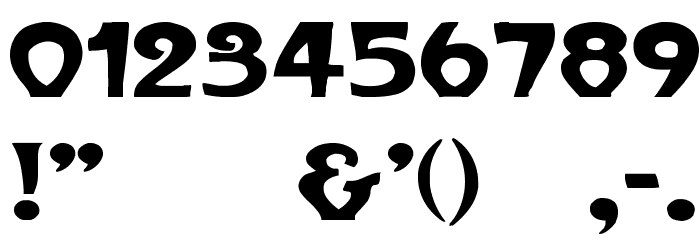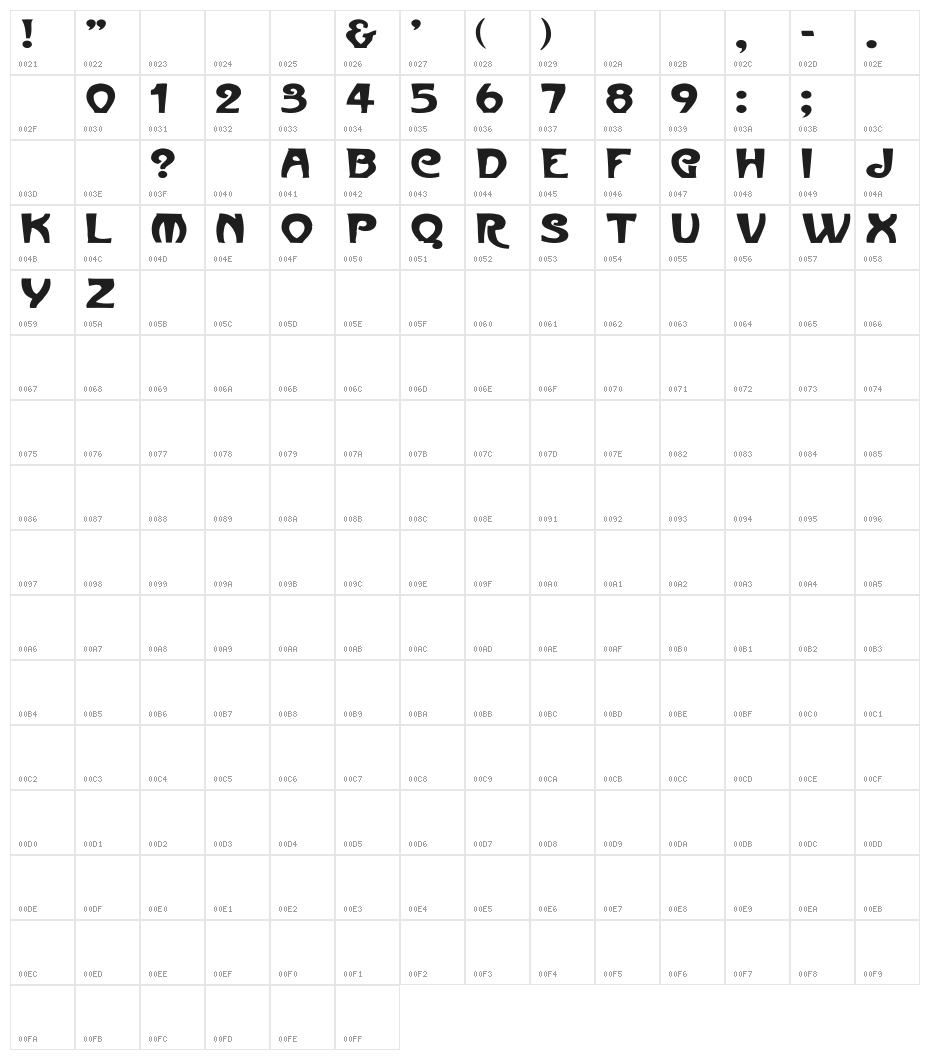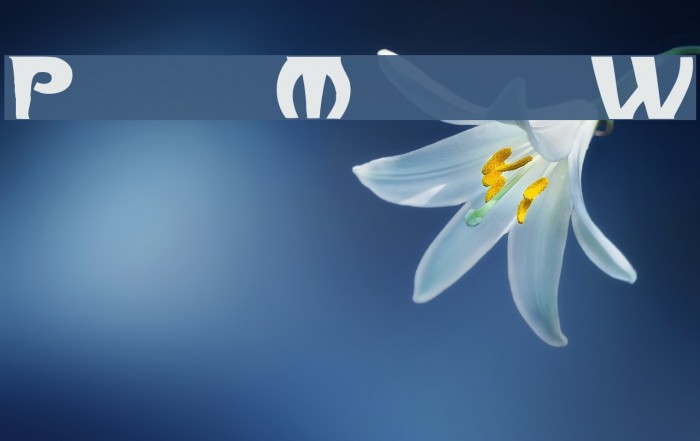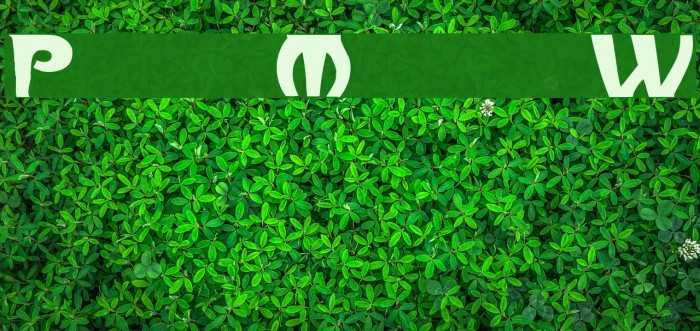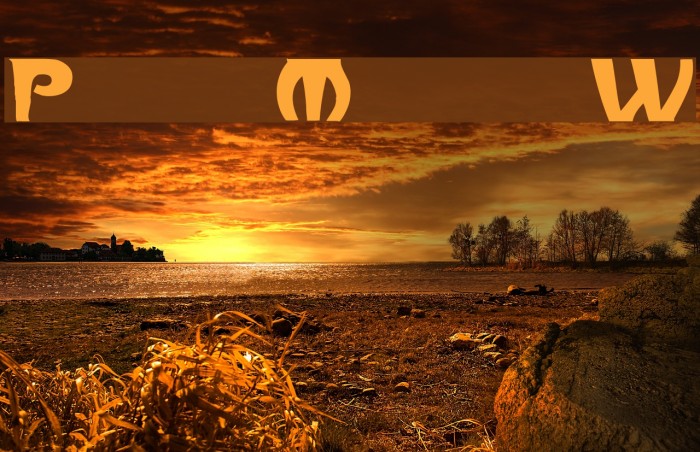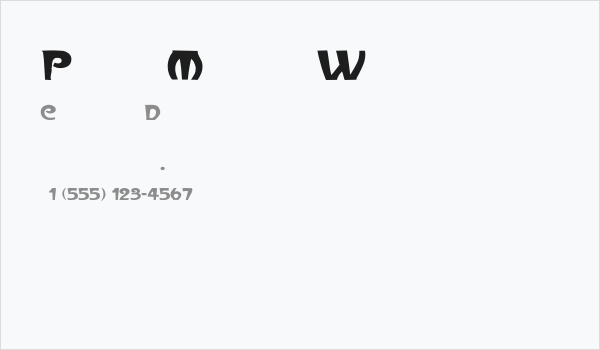
ParisMetro Wd Font
ParisMetro Wd Description
This font features a bold and decorative style, reminiscent of early 20th-century Art Nouveau design, often associated with the Paris Metro signage. The characters are uniquely stylized with thick, rounded strokes and distinctive curves, giving them a playful yet sophisticated appearance. The uppercase letters are particularly eye-catching, with some characters incorporating unexpected swirls and flourishes. The numerals and special characters maintain the same boldness and decorative flair, ensuring consistency across the typeface. This font's unique aesthetic makes it stand out, offering a vintage charm that is both nostalgic and artistic.
| Use Case | Headlines, Logos, Signage |
| Proposed Projects | Perfect for projects requiring a vintage or artistic touch, such as posters, signage, branding, and packaging design. |